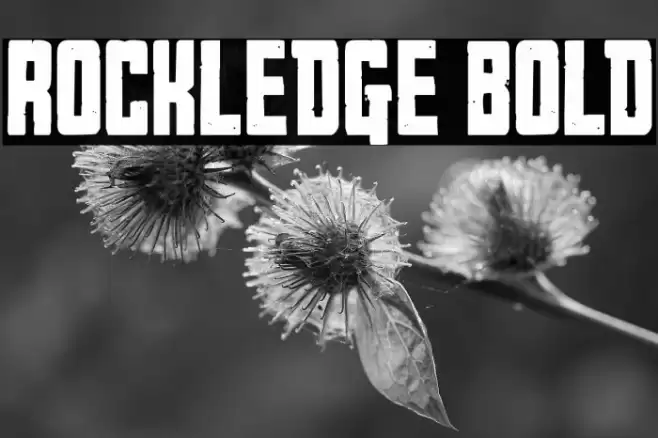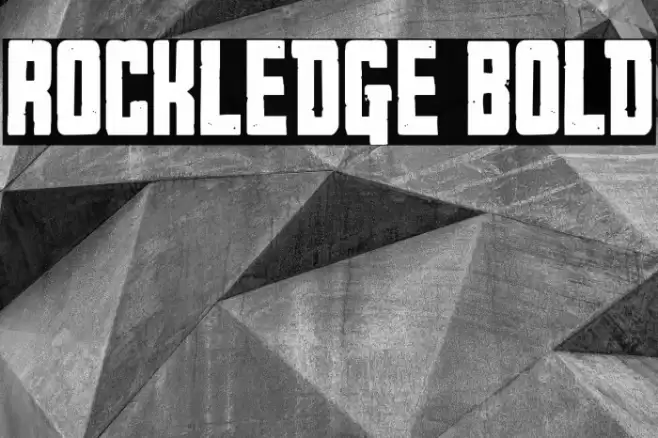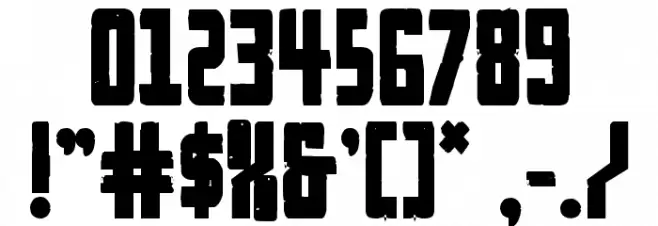
Rockledge Bold Font
Rockledge Bold Description
This bold, decorative font features a strong, impactful design with a rugged texture that gives it a distressed, vintage appearance. The characters are blocky and robust, with a uniform thickness that enhances their boldness. The uppercase letters are particularly striking, with a consistent height and width that create a cohesive look. The numbers and special characters maintain the same bold style, ensuring a harmonious appearance across all text. This font's unique texture and bold presence make it ideal for projects that require a strong visual impact.
A bold, decorative font with a rugged, vintage texture from Uncategorized fonts.
- Proposed Projects: Ideal for posters, logos, and headlines that need a strong, vintage look.
- Overall Style: Vintage